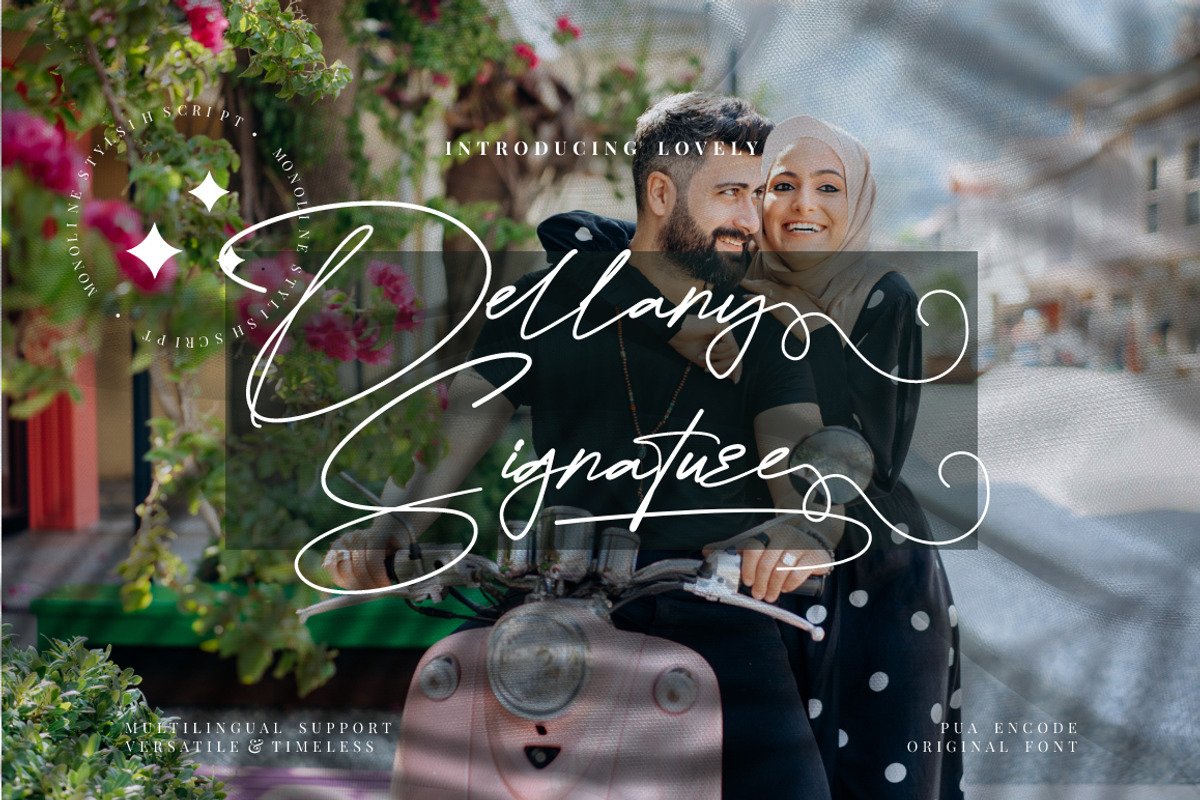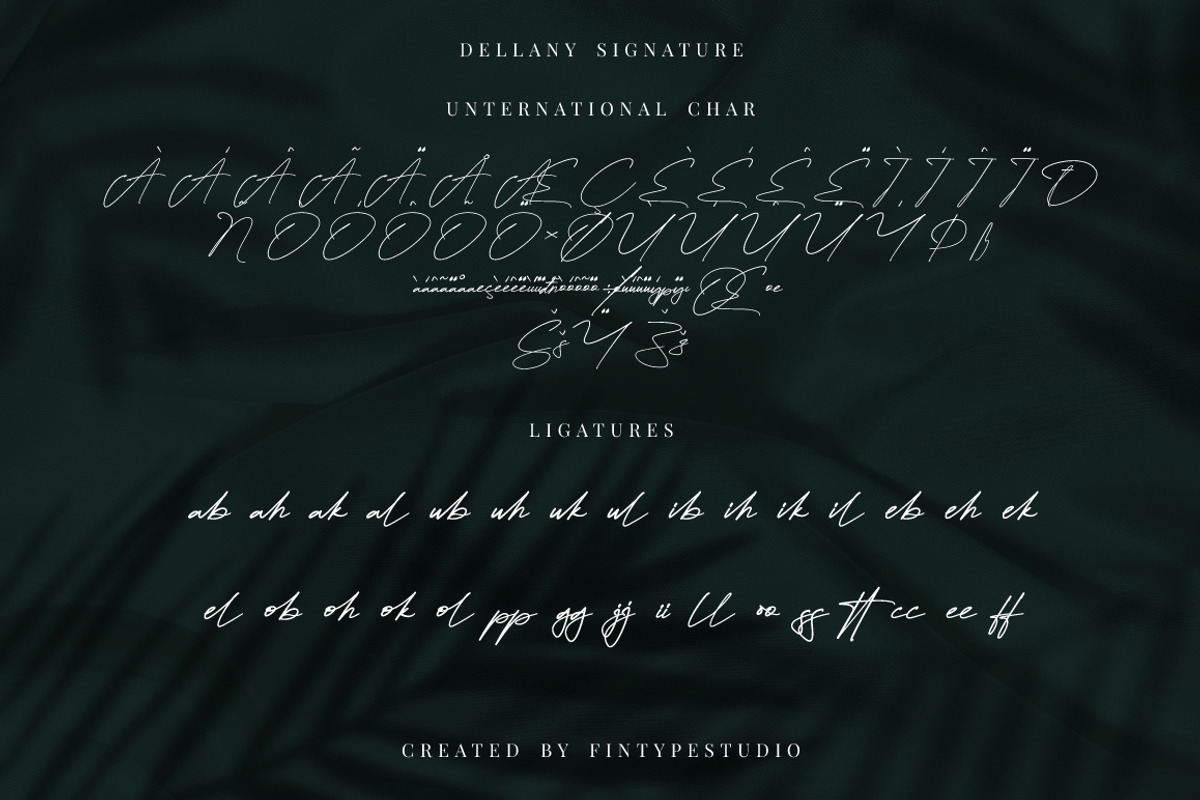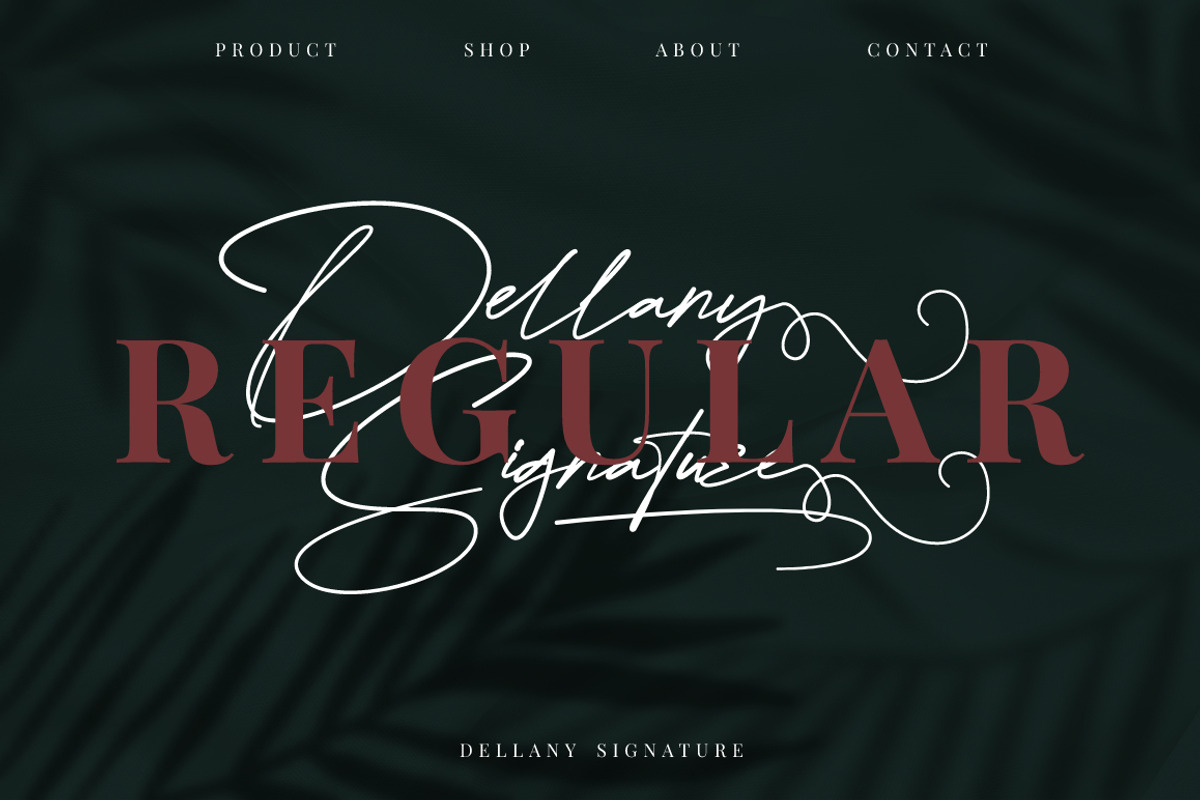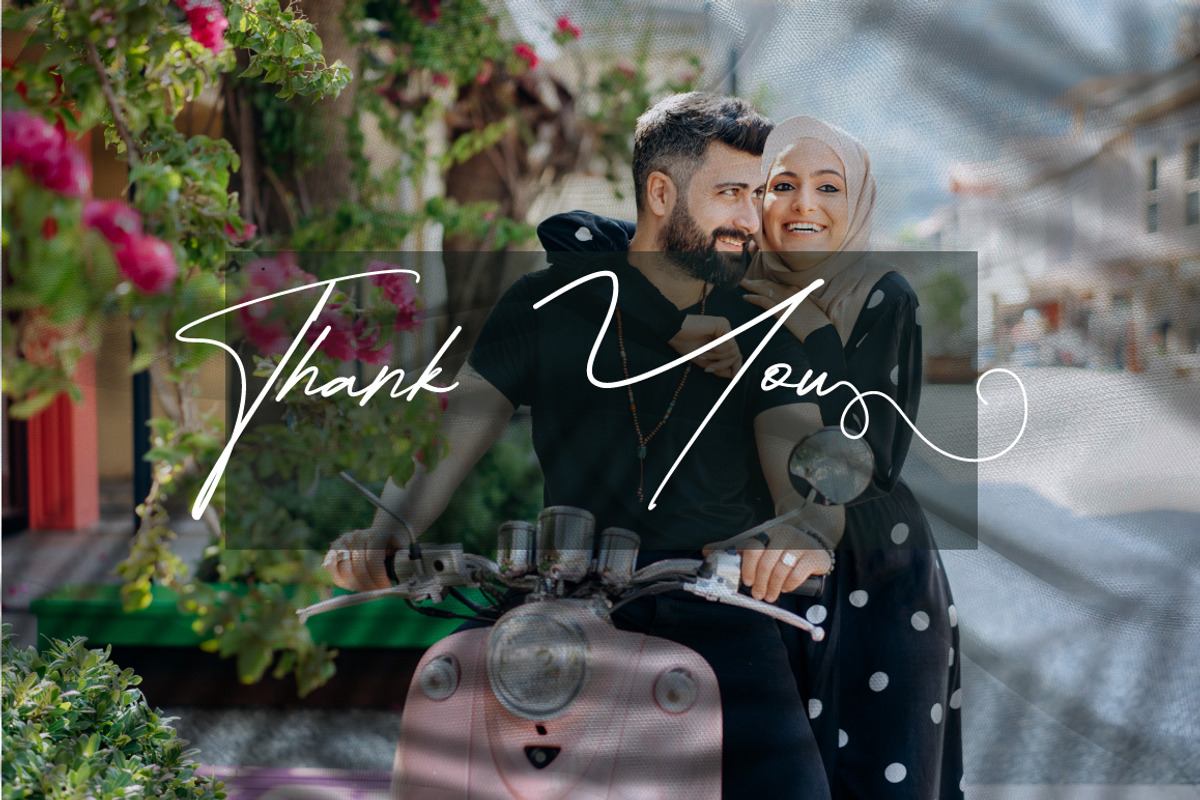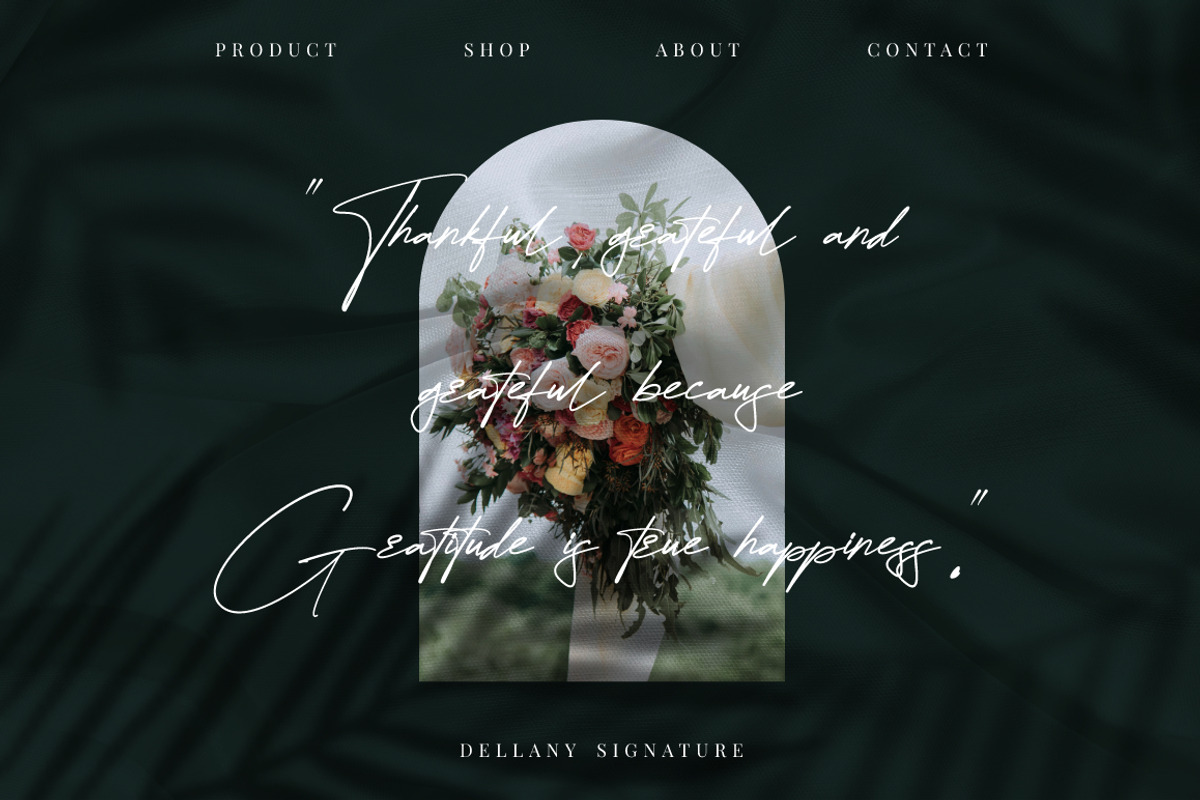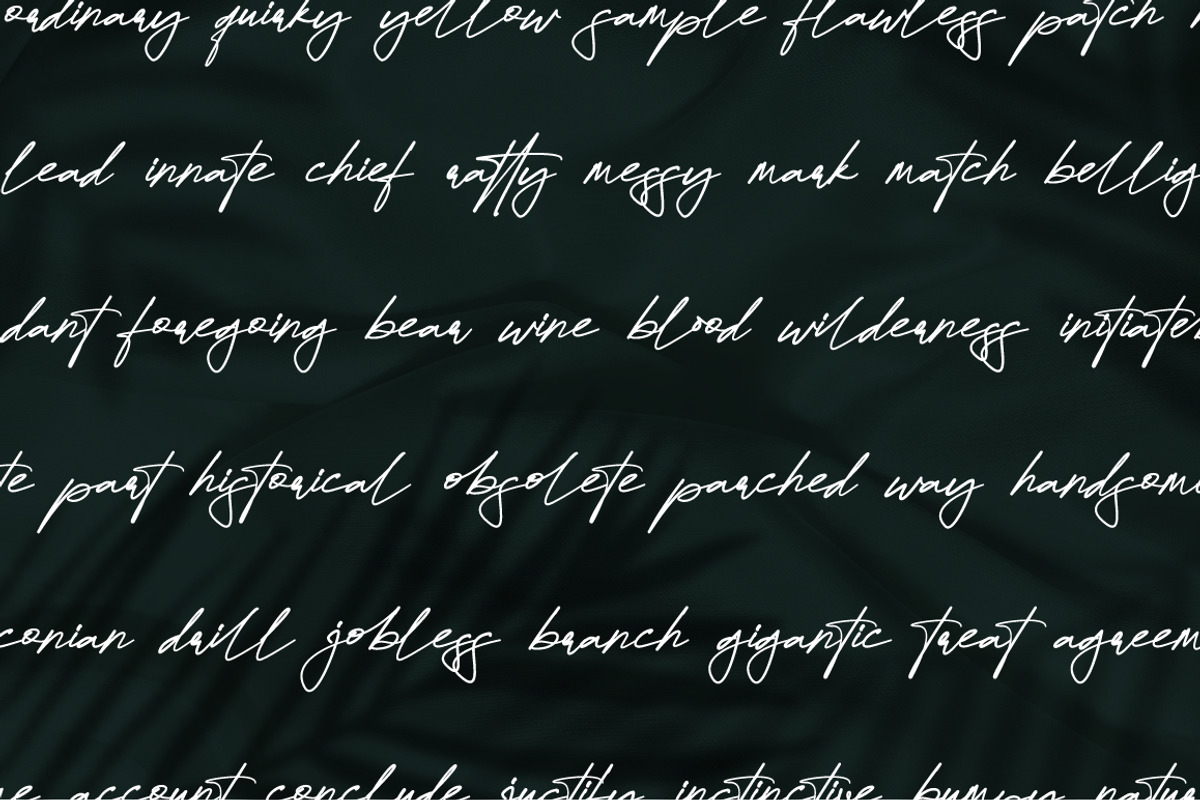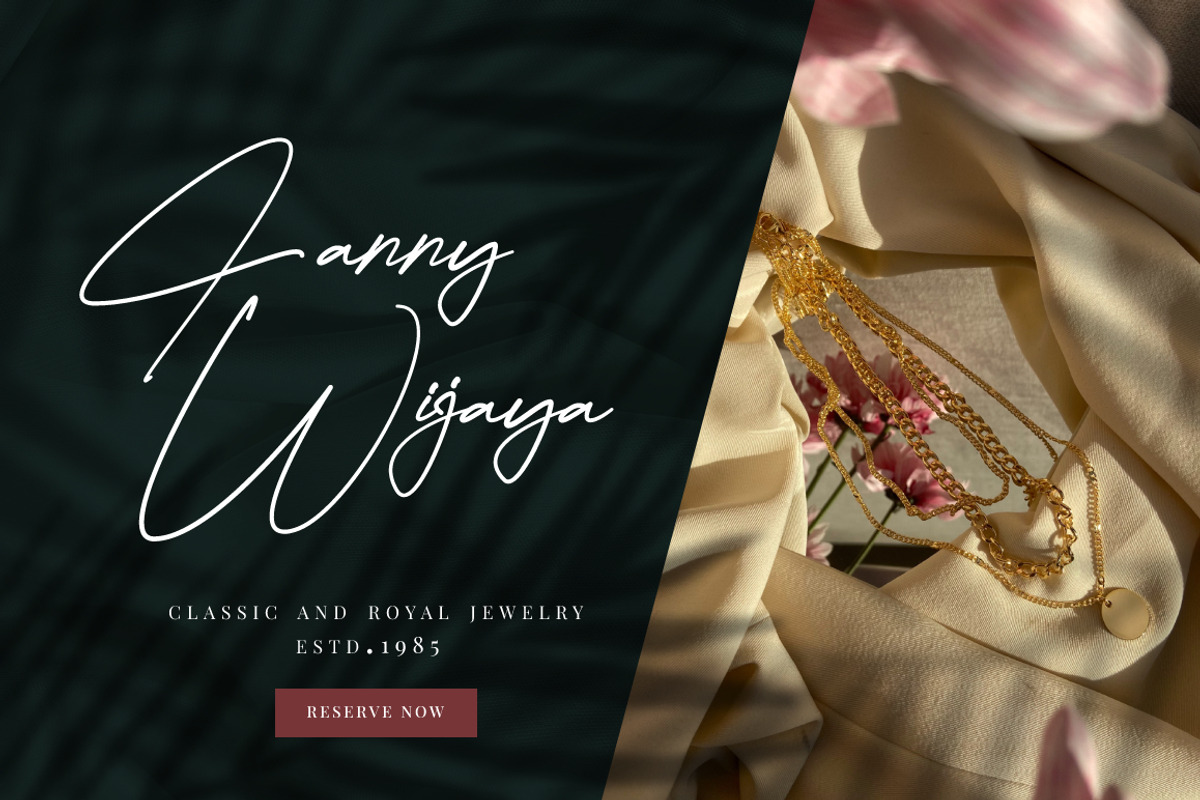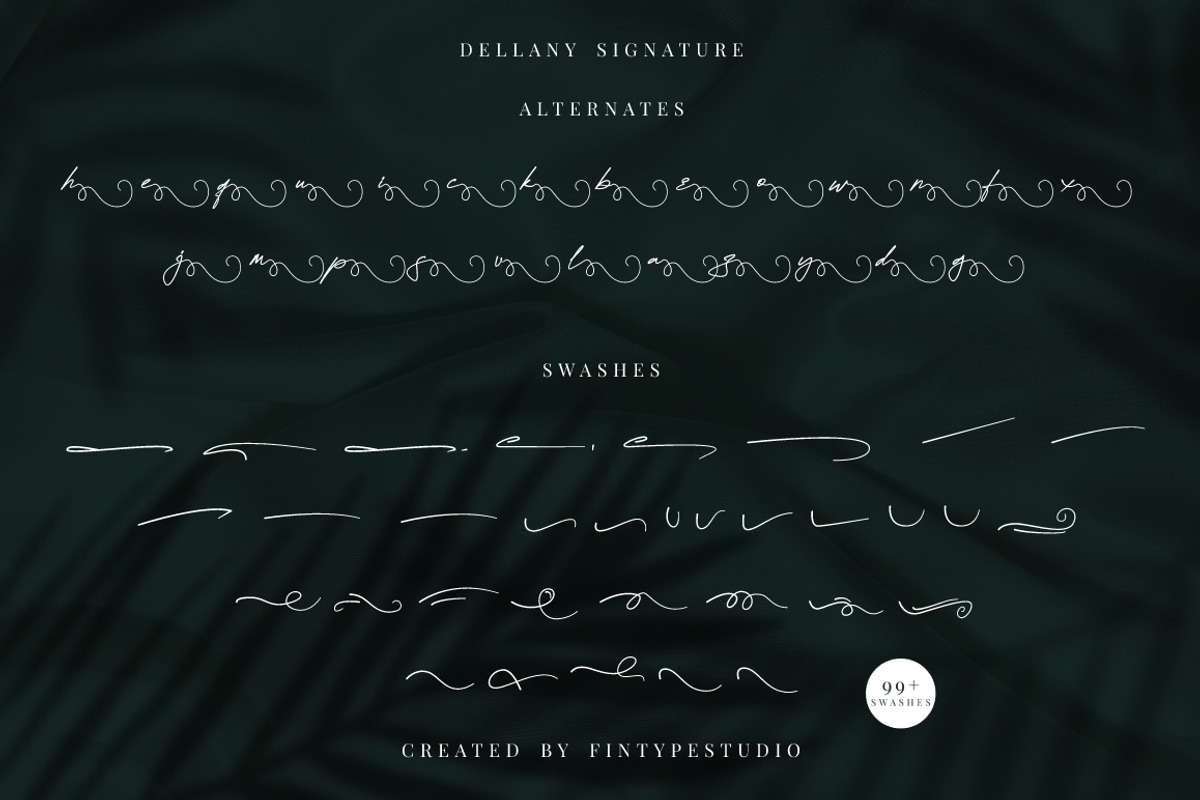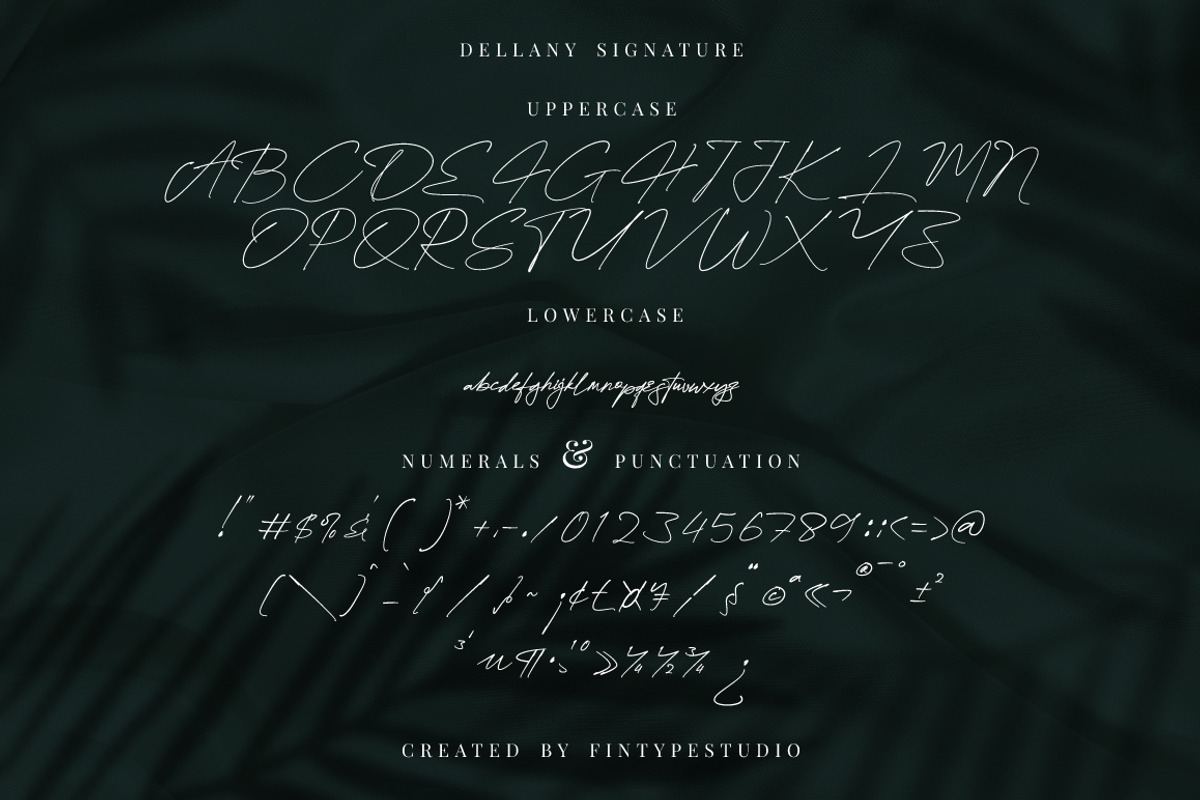
Dellany Signature Business Font
Dellany Signature – Monoline Signature Font , from FinTypeStudio, suitable for any projects such as: logos, branding projects, homeware designs, product packaging, mugs, quotes, posters, shopping bags, t-shirts, book covers, name card, invitation cards, greeting cards, label, photography, watermark, special events, and all your other lovely projects that need a beautiful script taste.
Ton of glyphs
Ligature
Alternate